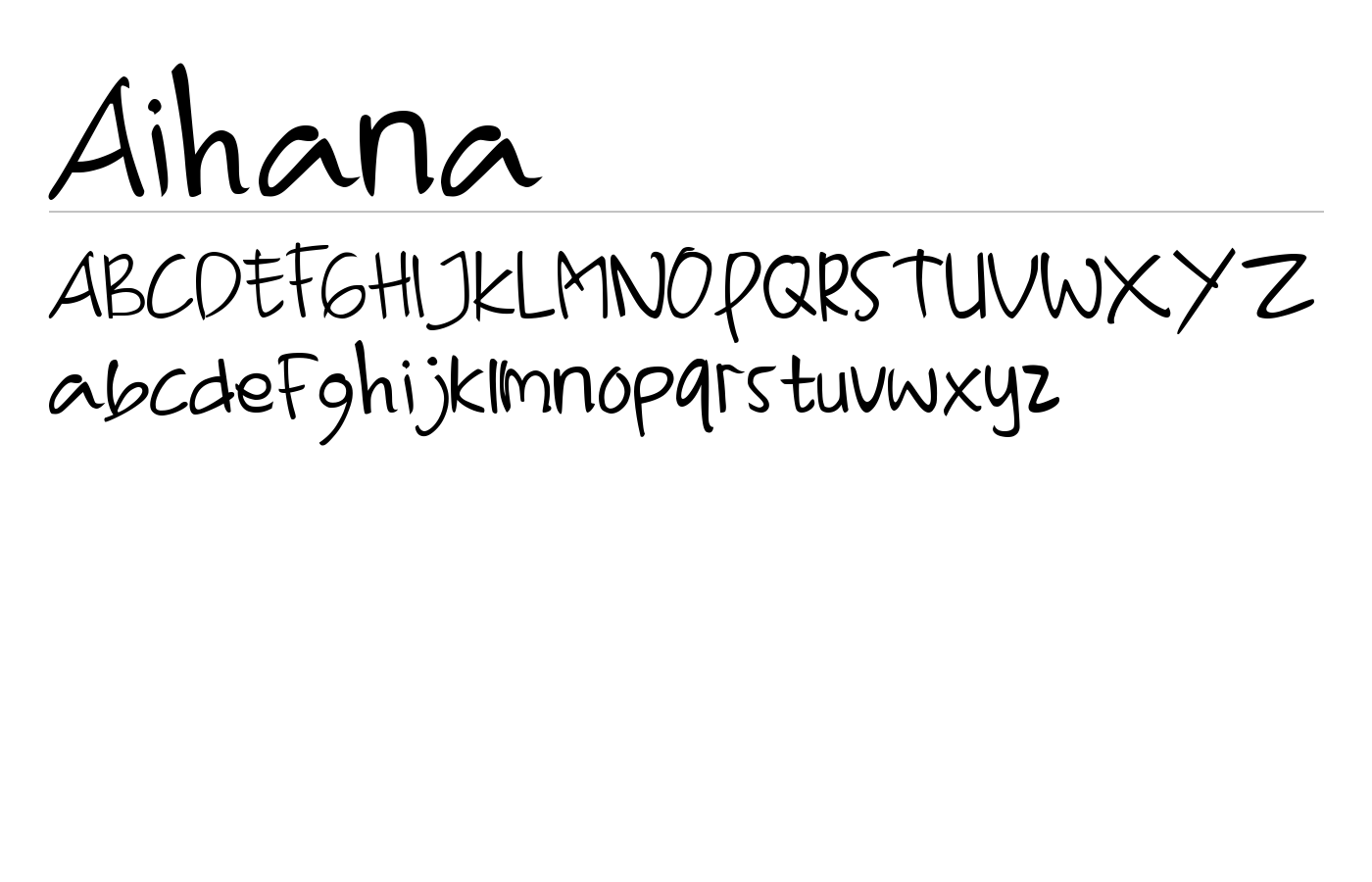
Aihana is a casual, handwritten sans serif font that offers a friendly and approachable feel with its playful, irregular strokes and moderate contrast. Its light to regular weight and natural letterforms make it perfect for informal designs, creative projects, and personal branding where a warm, human touch is desired. This font works well in logos, social media graphics, and packaging that aim to convey friendliness and creativity.
Aihana Font
About Aihana Font